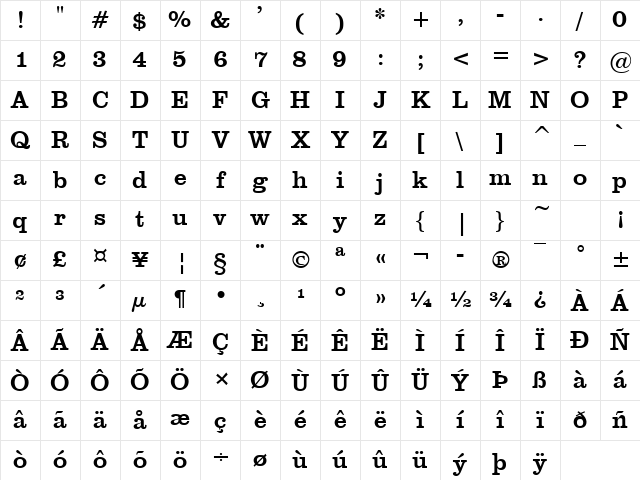
Gettysburg Regular
Design Context for Gettysburg
Gettysburg is a composed and adaptable typeface that performs quietly and consistently across a wide range of design contexts.